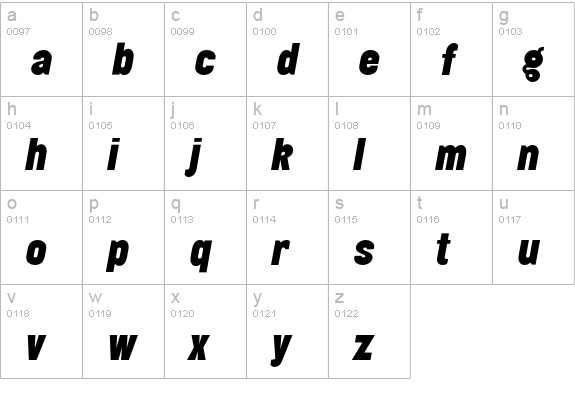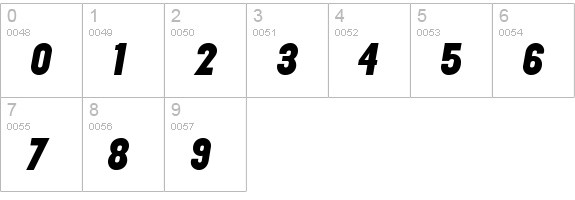
Elephant-BlackOblique Font Details
Elephant-BlackOblique font is a bold and striking typeface that exudes elegance and sophistication. Its sleek and modern design makes it the perfect choice for a wide range of projects, from branding to editorial design. The slanted oblique style adds a touch of dynamism and flair to any text, making it stand out on the page. What sets Elephant-BlackOblique font apart is that it is not only visually appealing but also completely free to download. You can easily access this stunning font at FontsMarket.com, where you can unleash your creativity and elevate your design projects with this versatile typeface. Whether you're working on a professional presentation, a stylish poster, or a sleek website, Elephant-BlackOblique font has got you covered with its bold presence and eye-catching aesthetic. Download it today and take your design to the next level!